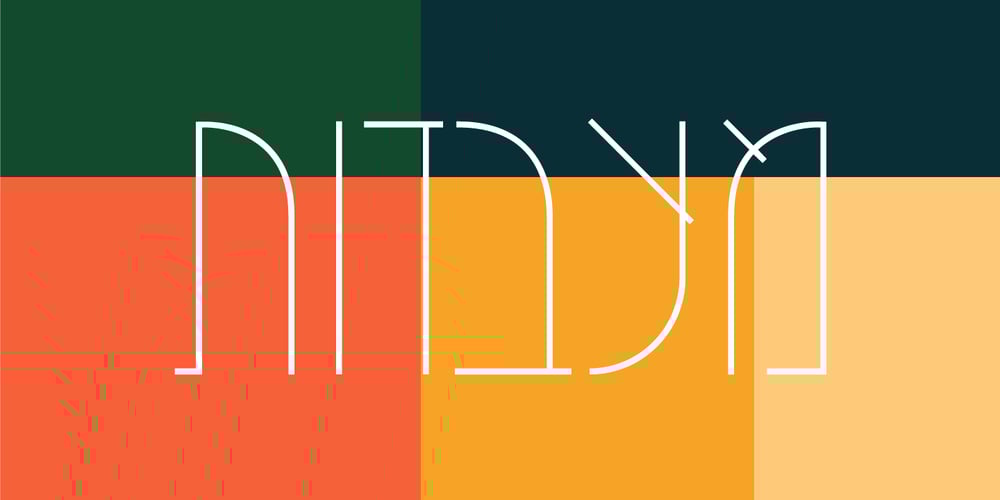
Ayalon MF
Ayalon MF font
Ayalon MF Font Family was designed by Zvika Rosenberg and published by Masterfont. Ayalon MF contains 3 styles and family package options. Geometric forms make this elegant font family a great companion for invitations and signs, indoor and outdoor. Proportional figures added, perfect for signage.